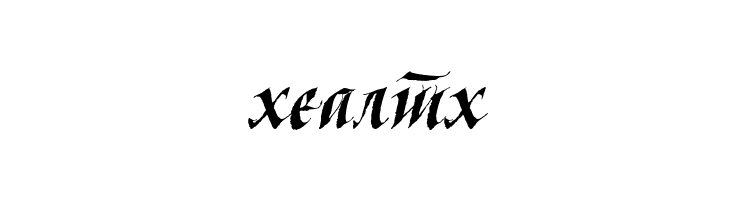
( Posterizer KG - Lazar Dimitrijevic - www.myfonts.com/foundry/PosterizerKG/#return_to_item_11 )
A classic calligraphic font with sharp, angular strokes and a traditional Cyrillic style.